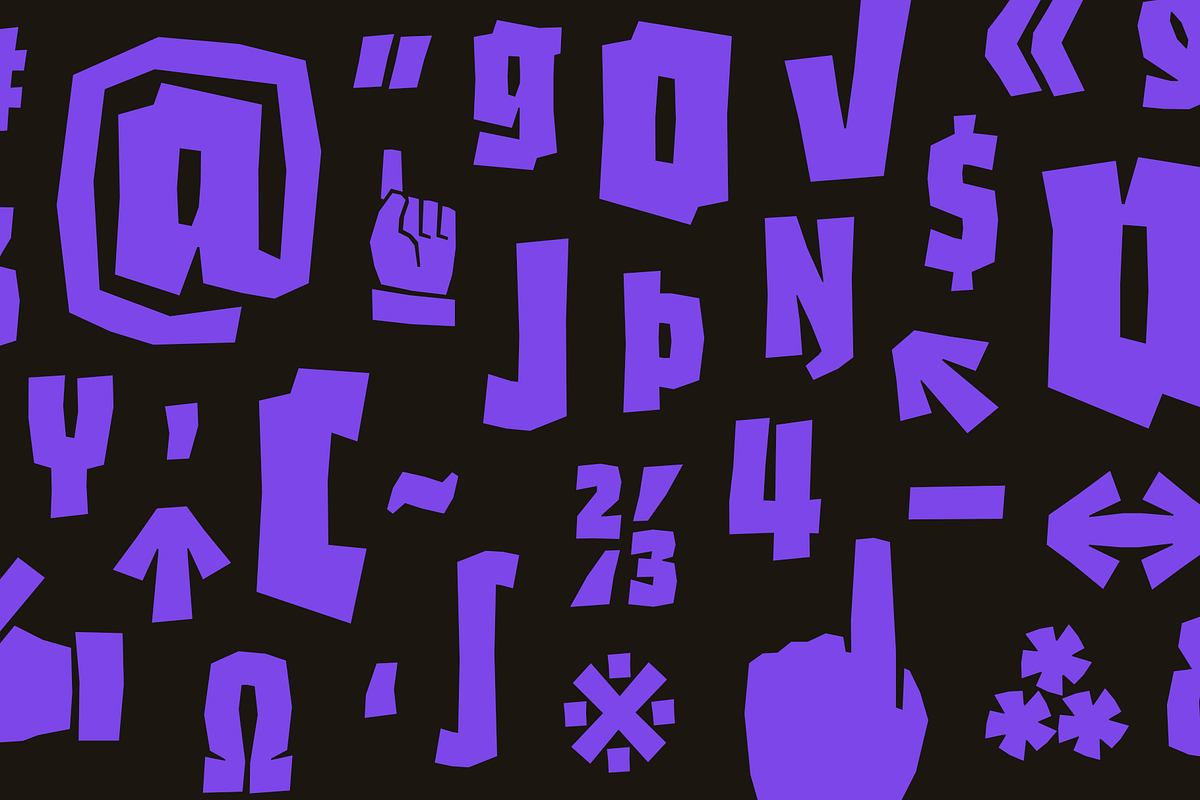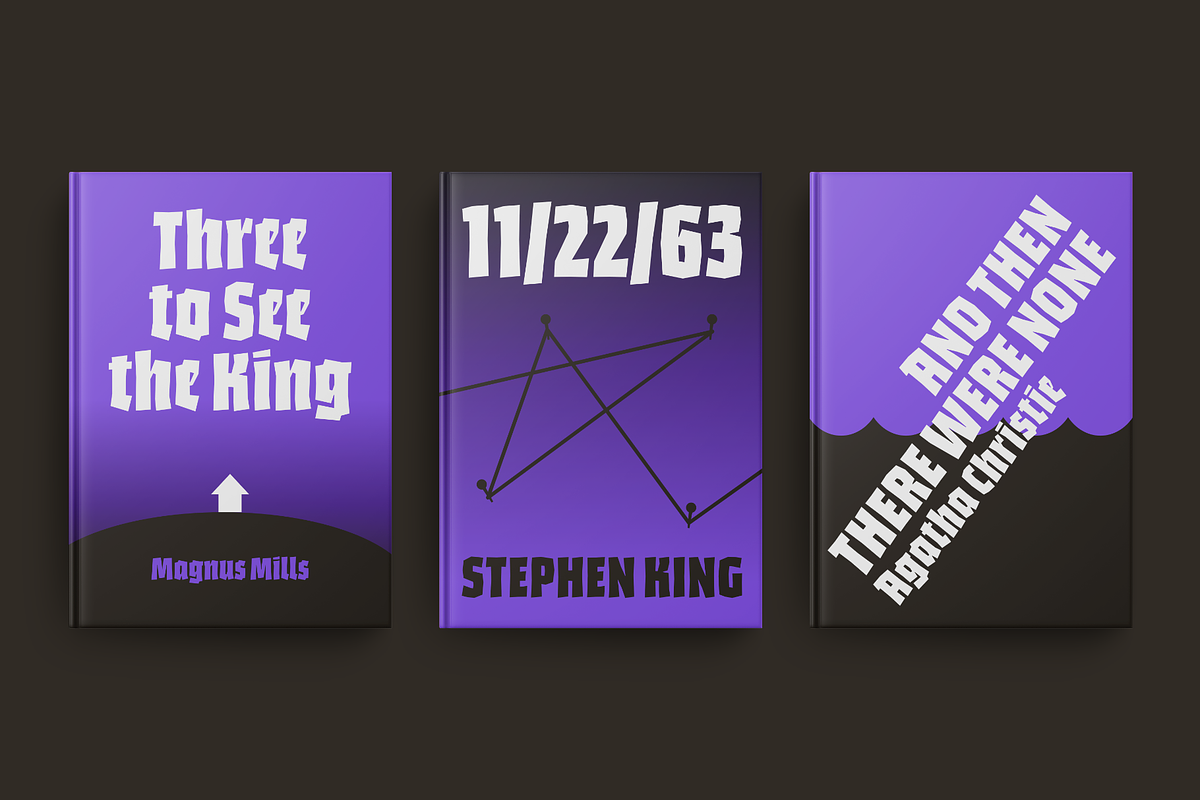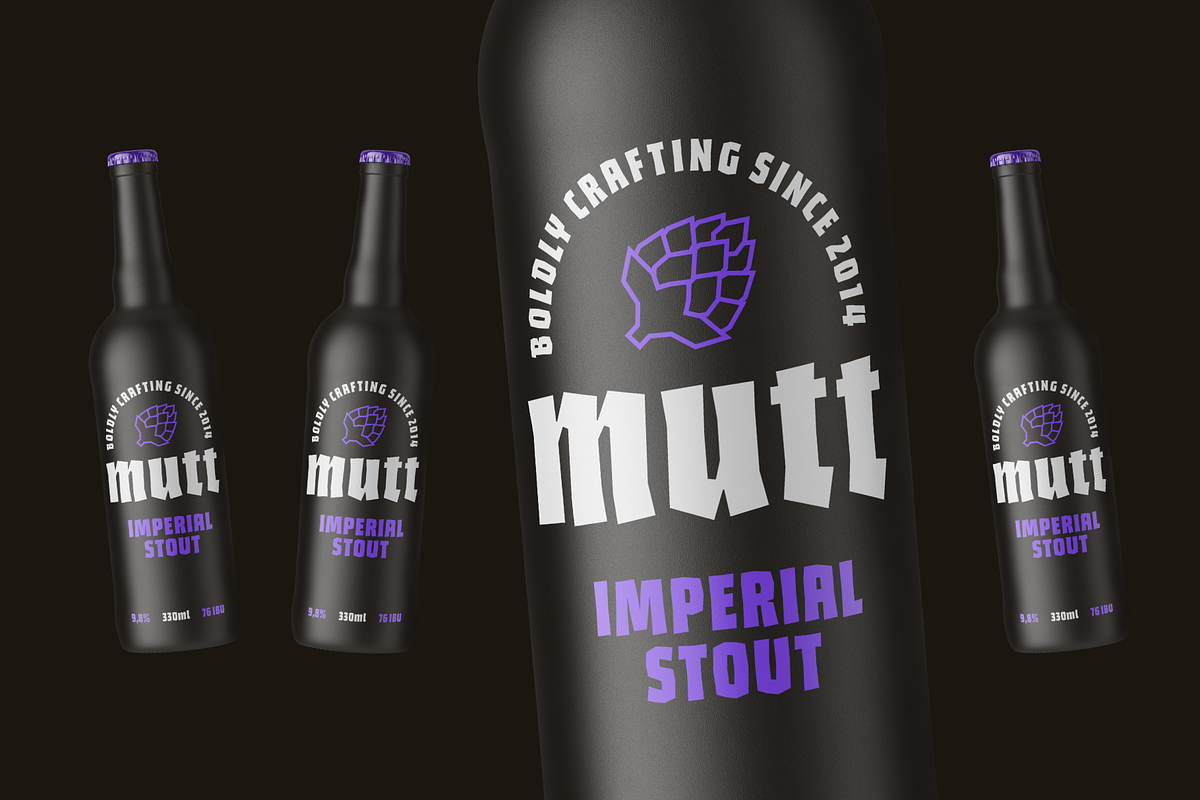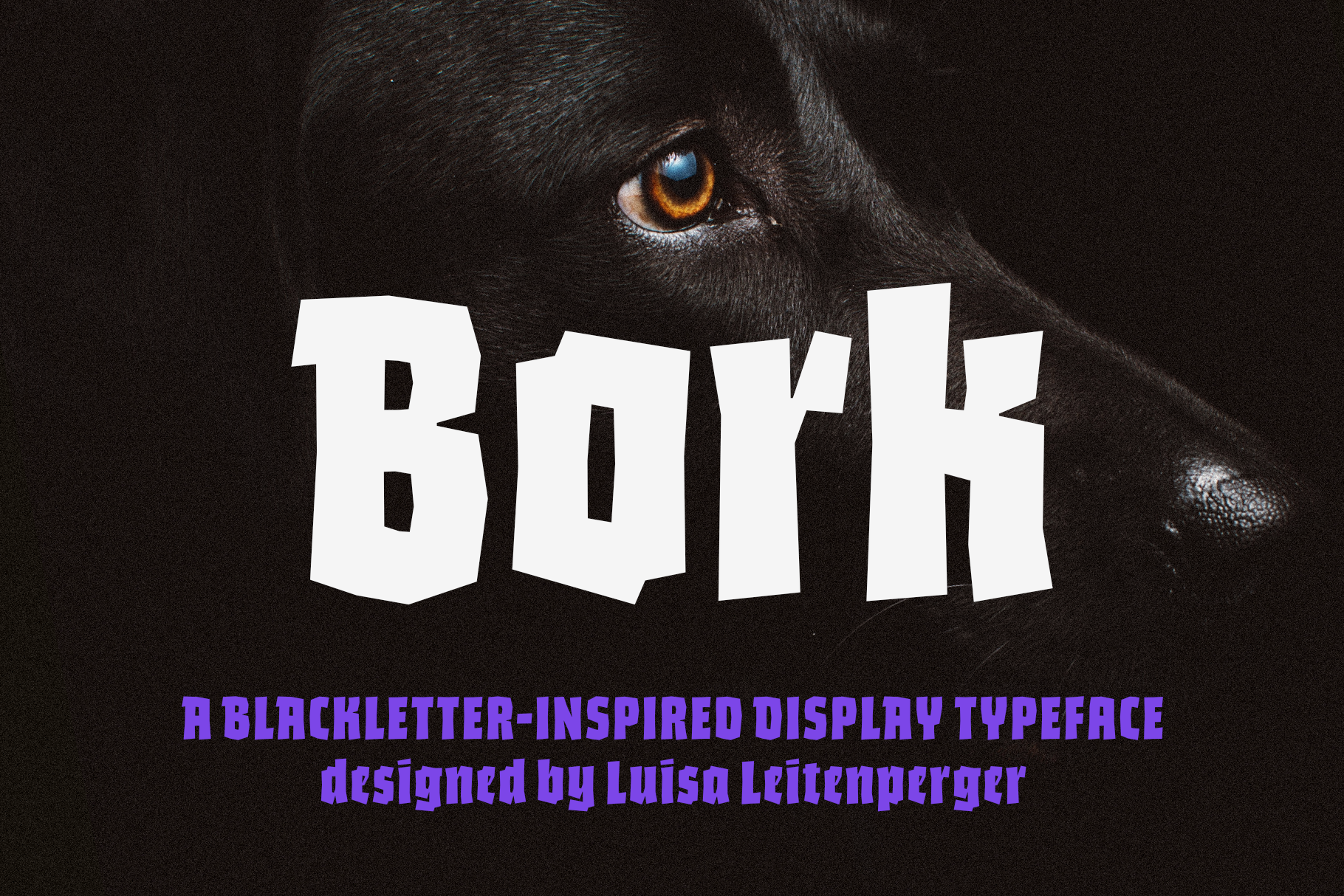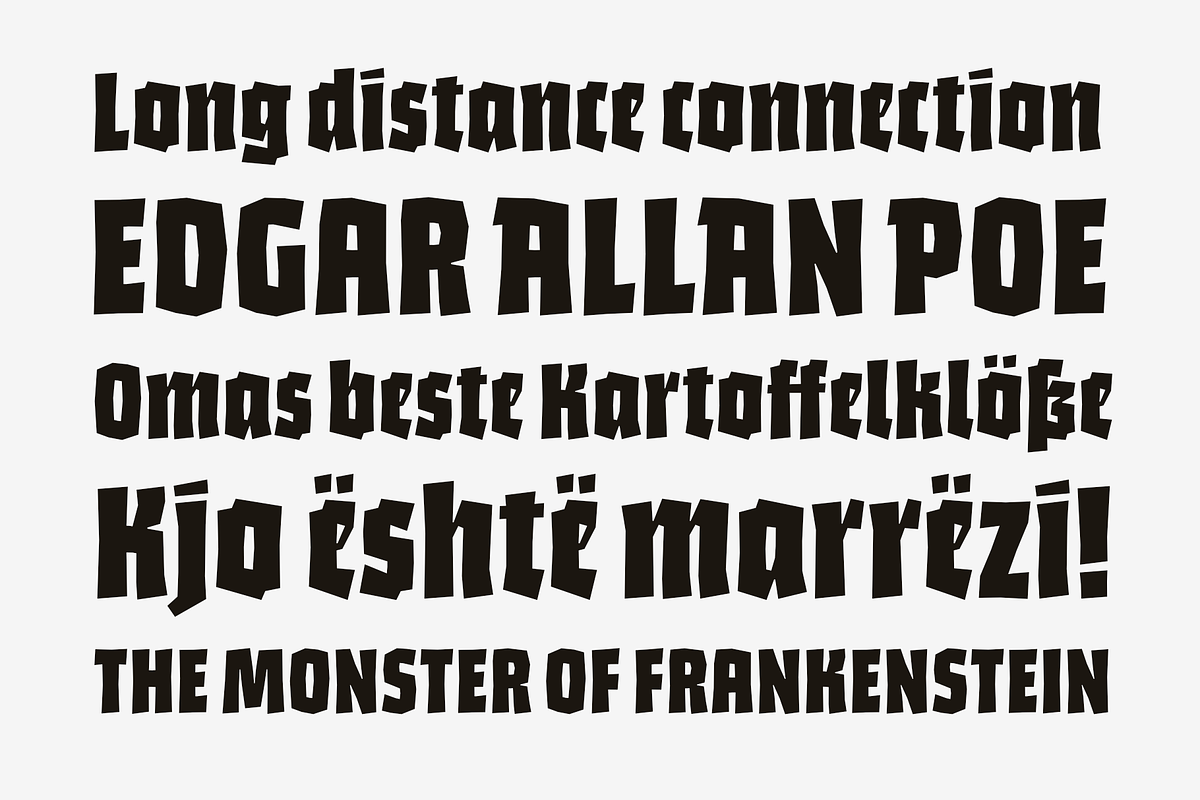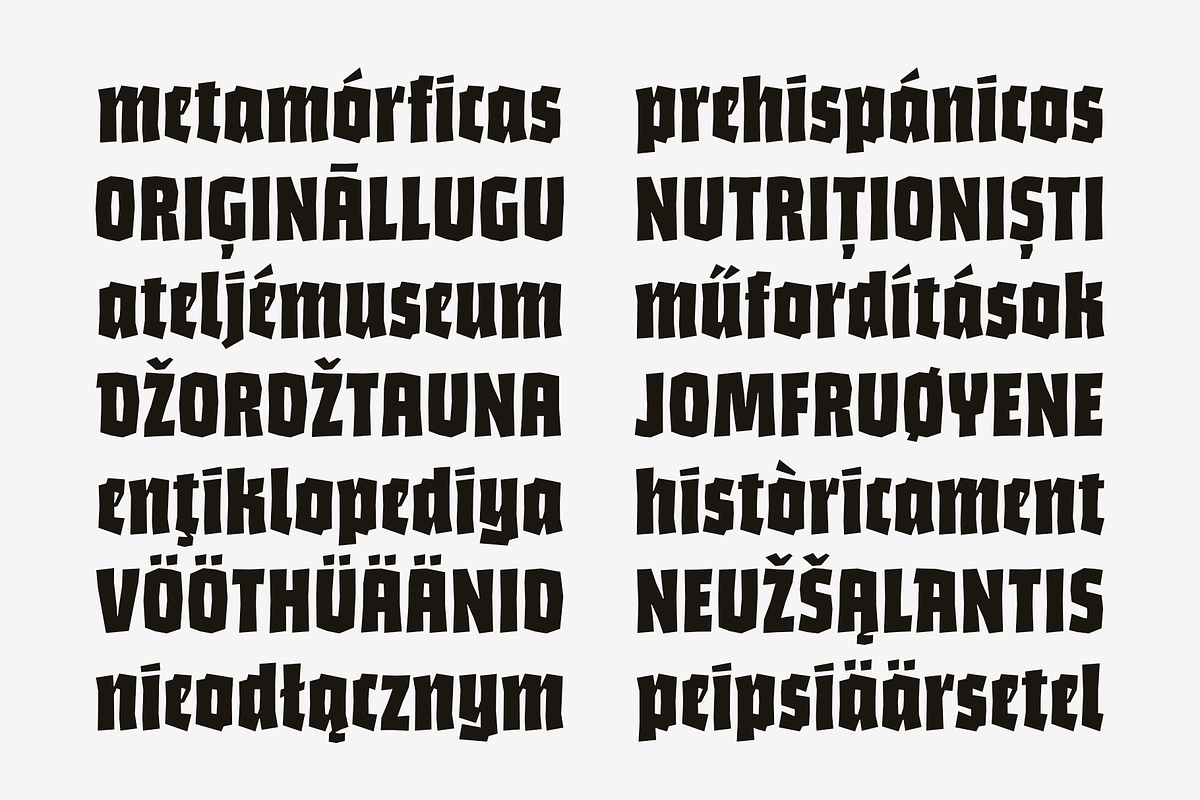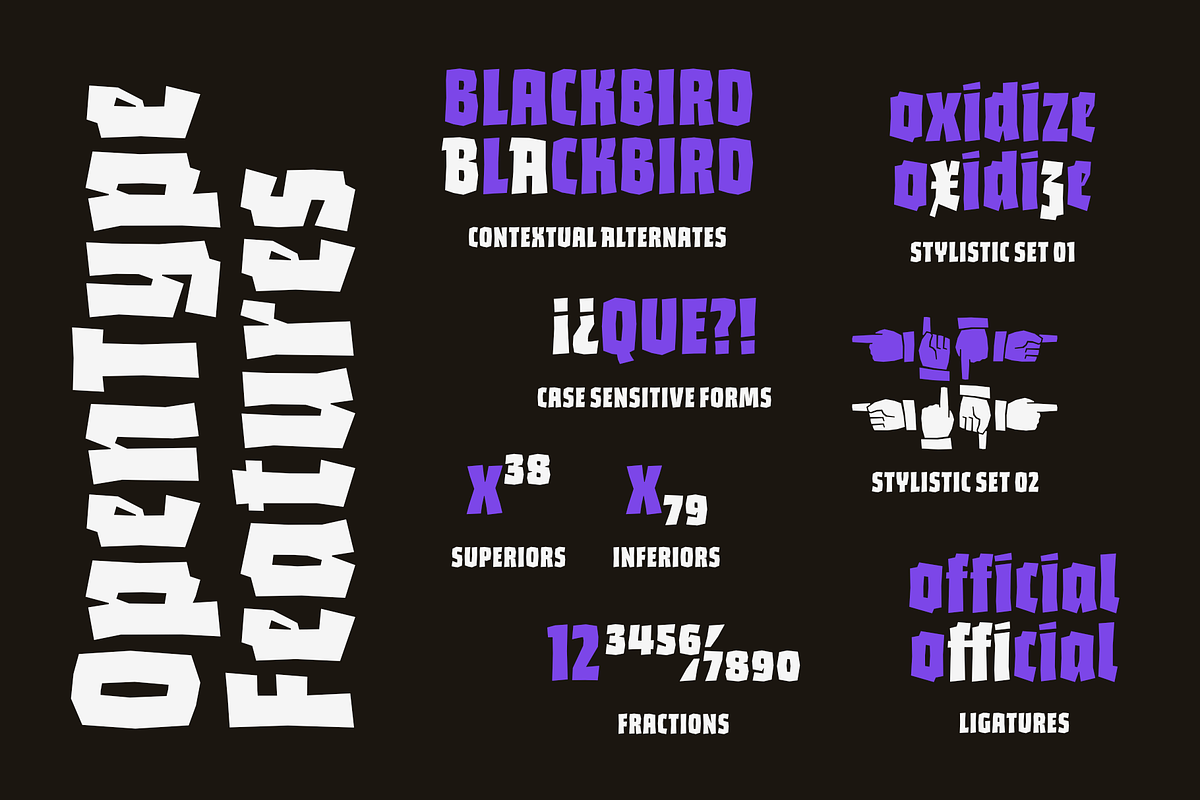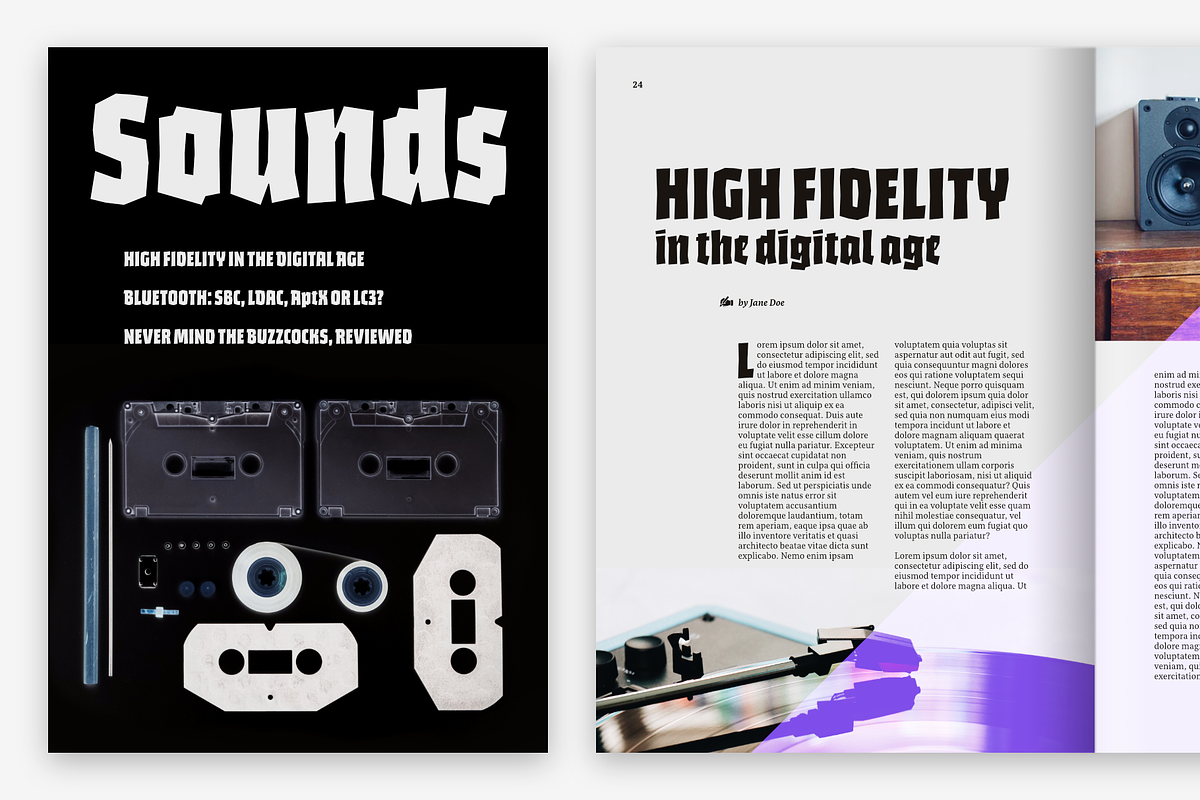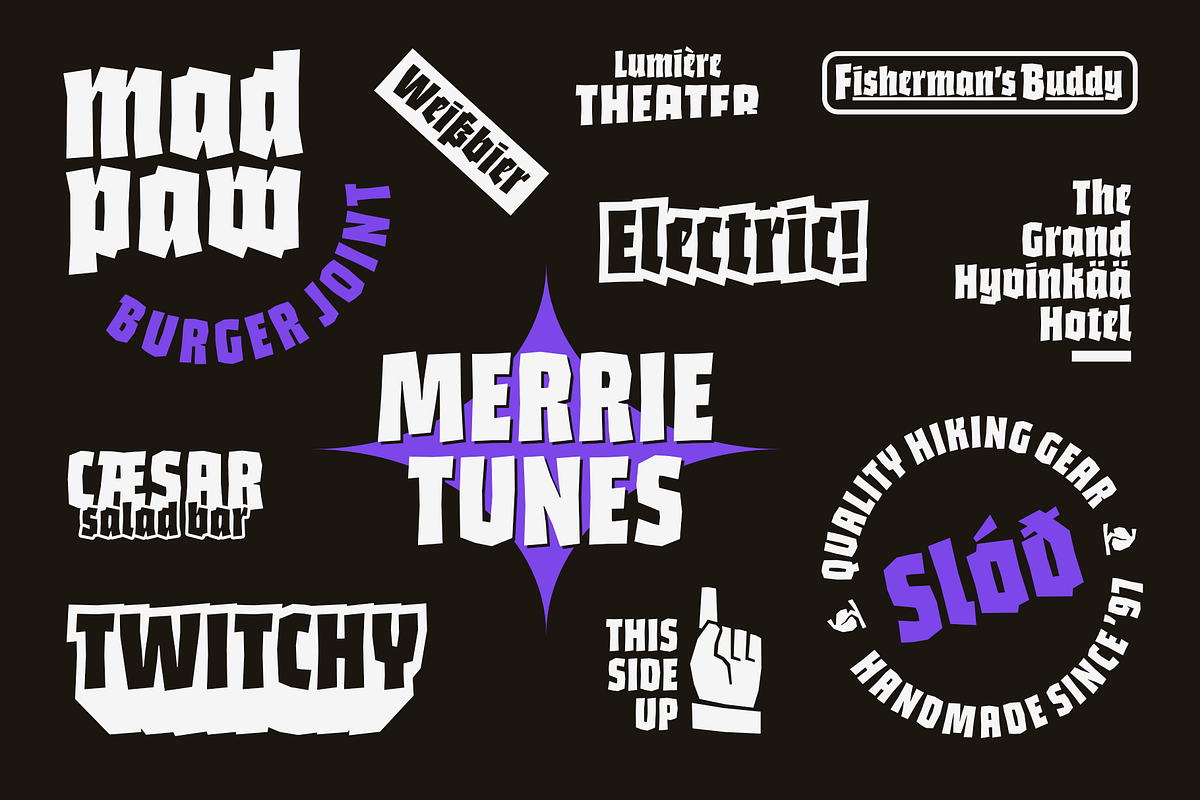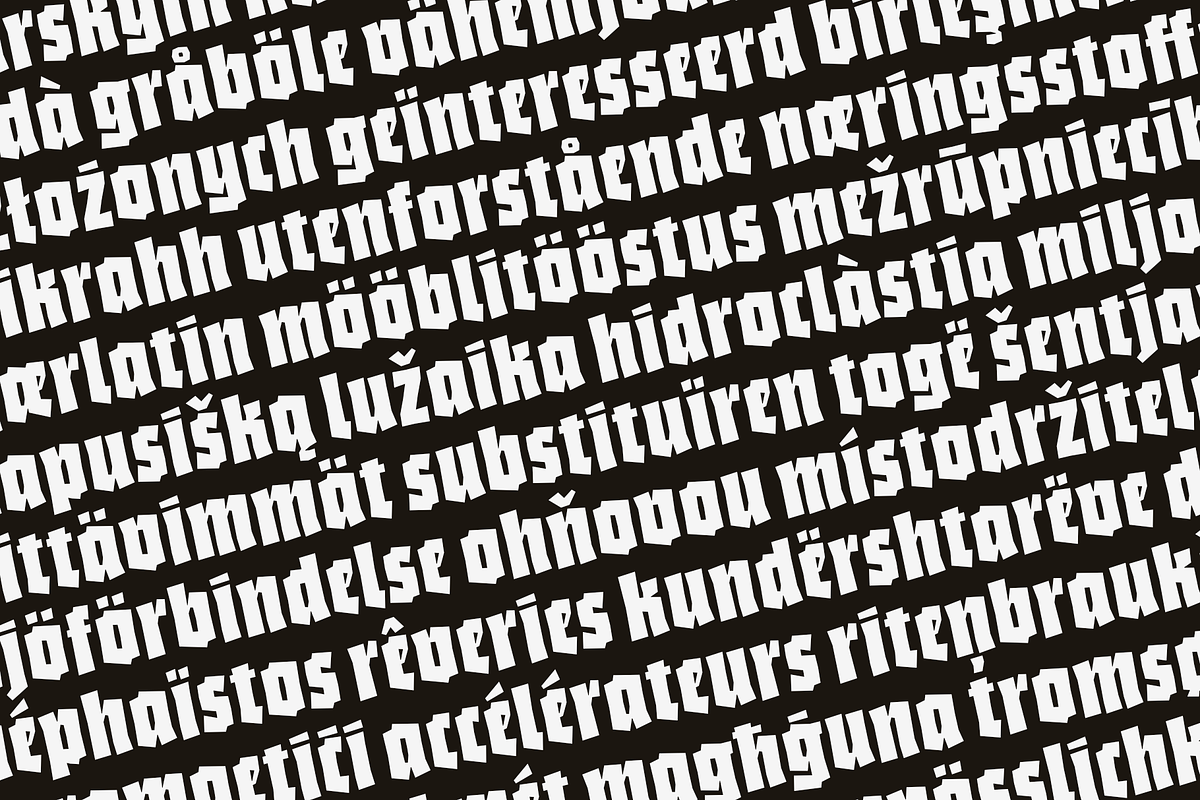
Bork: a blackletter-inspired font
Bork is a display typeface that was inspired by an exercise in blackletter calligraphy. The style’s characteristic dark texture is seen mainly in the lowercase, with uniform spacing (where counterspace equals letterspace), shapes that recall the straight, interrupted strokes used in that style of writing, and the peculiar construction of certain letters. On the other hand, the uppercase aims for a more conventional roman construction, making it more legible for modern-day readers.
It features an extensive character set that includes contextual and stylistic alternates, superior and inferior figures, arbitrary fractions, as well as several unusual ornaments, symbols and punctuation. Bork is especially suited for use in book covers, headlines, packaging and logotypes.